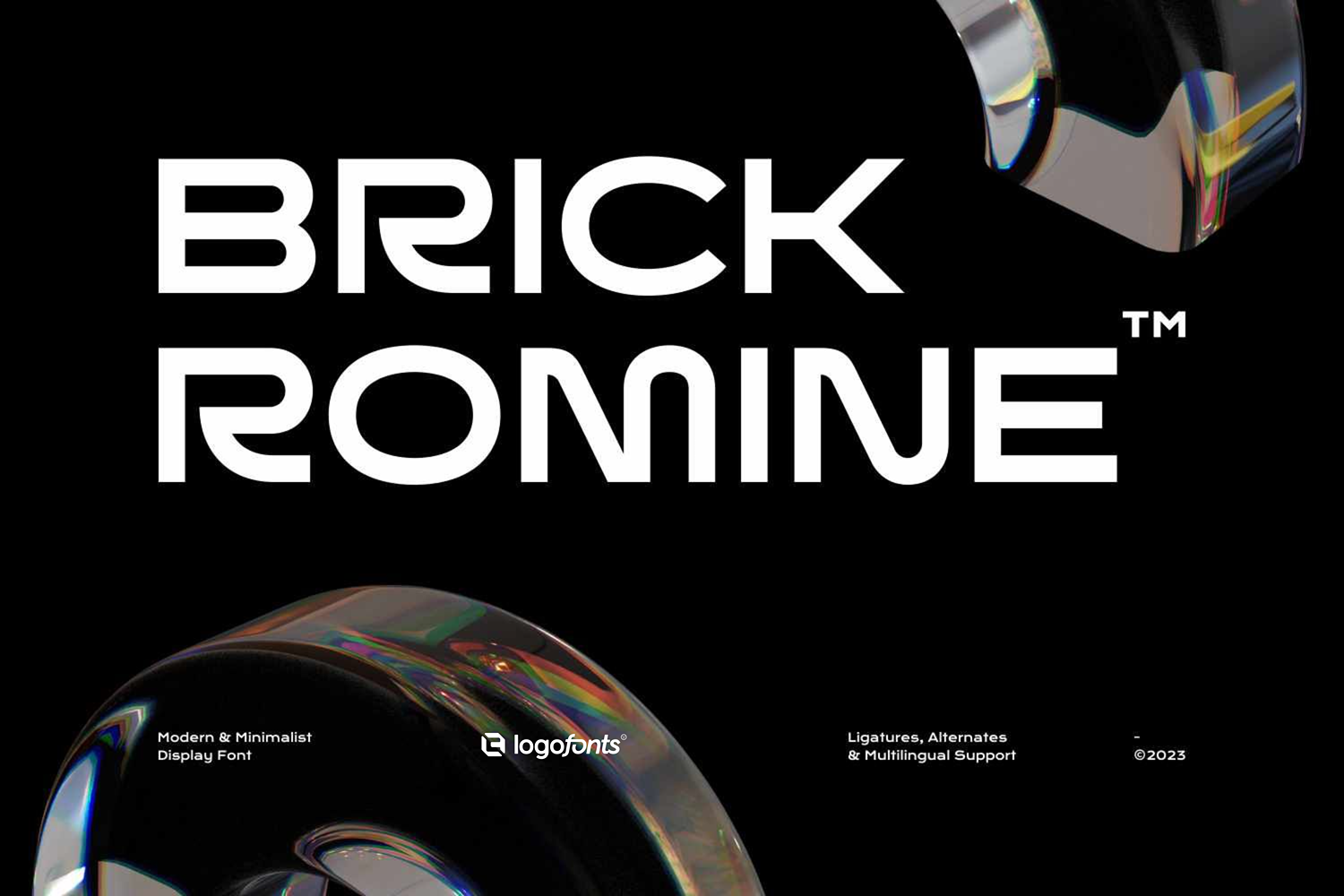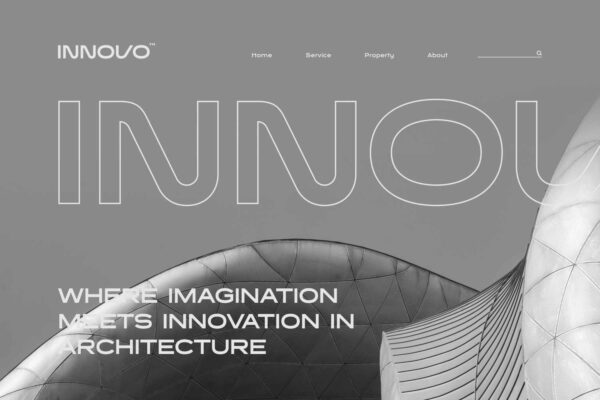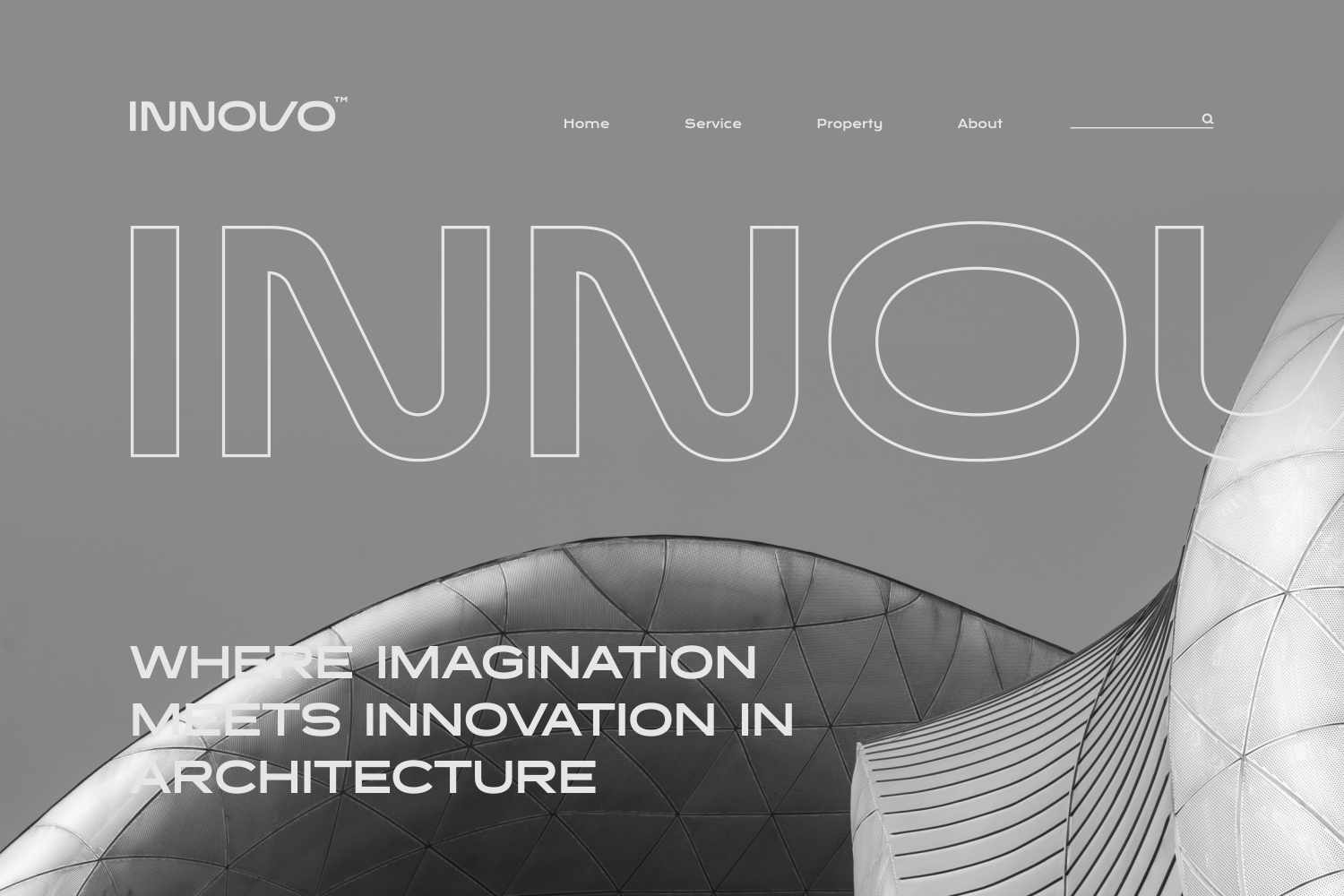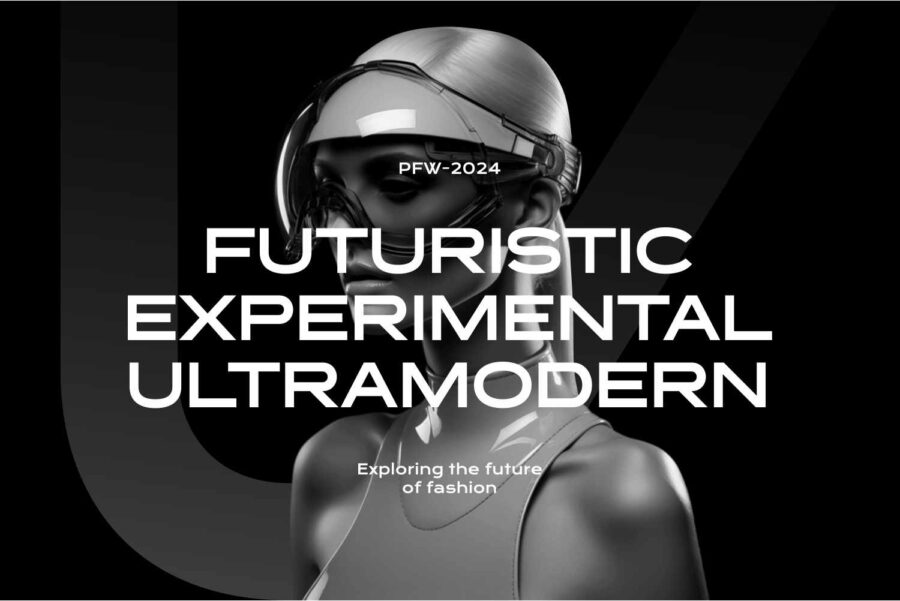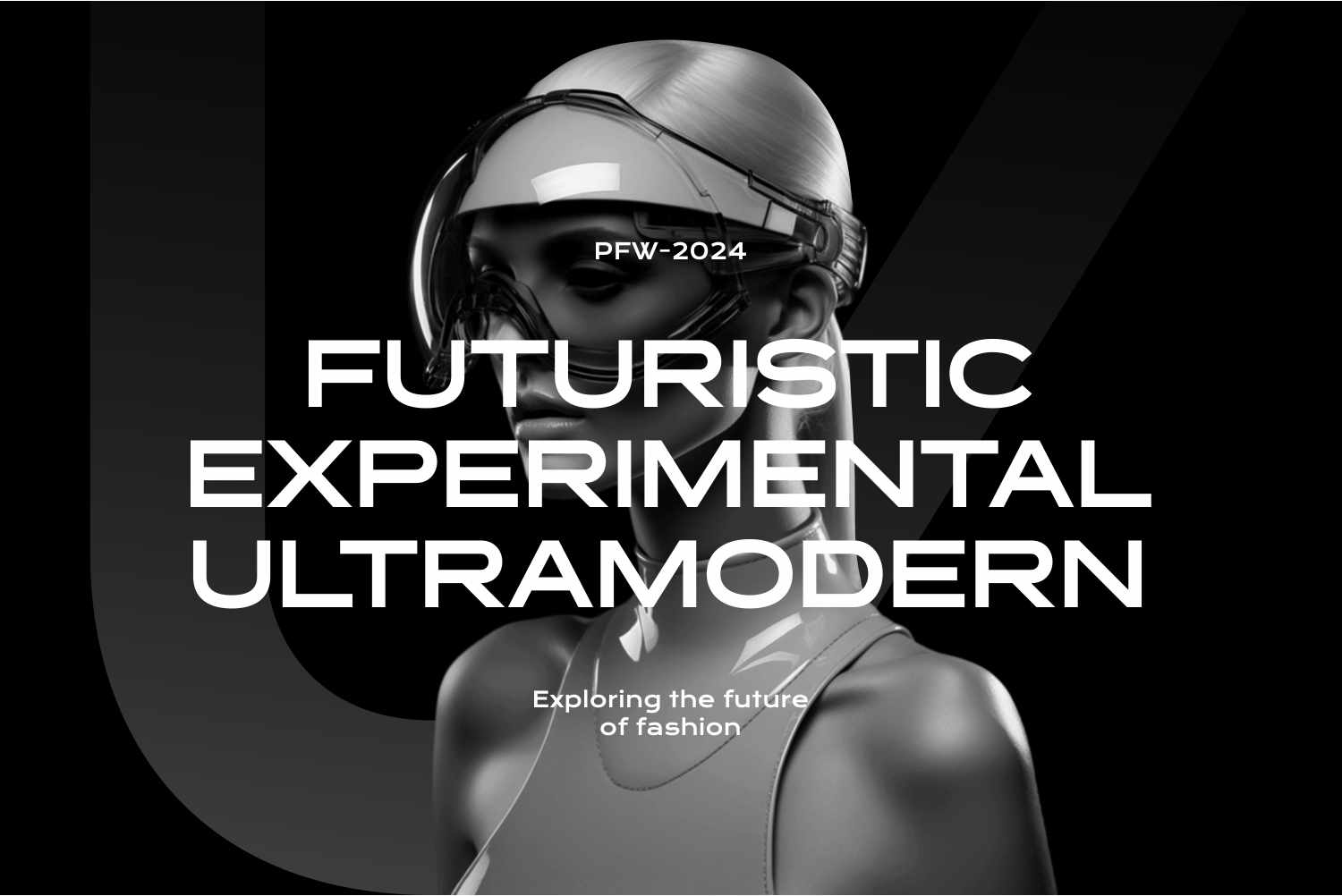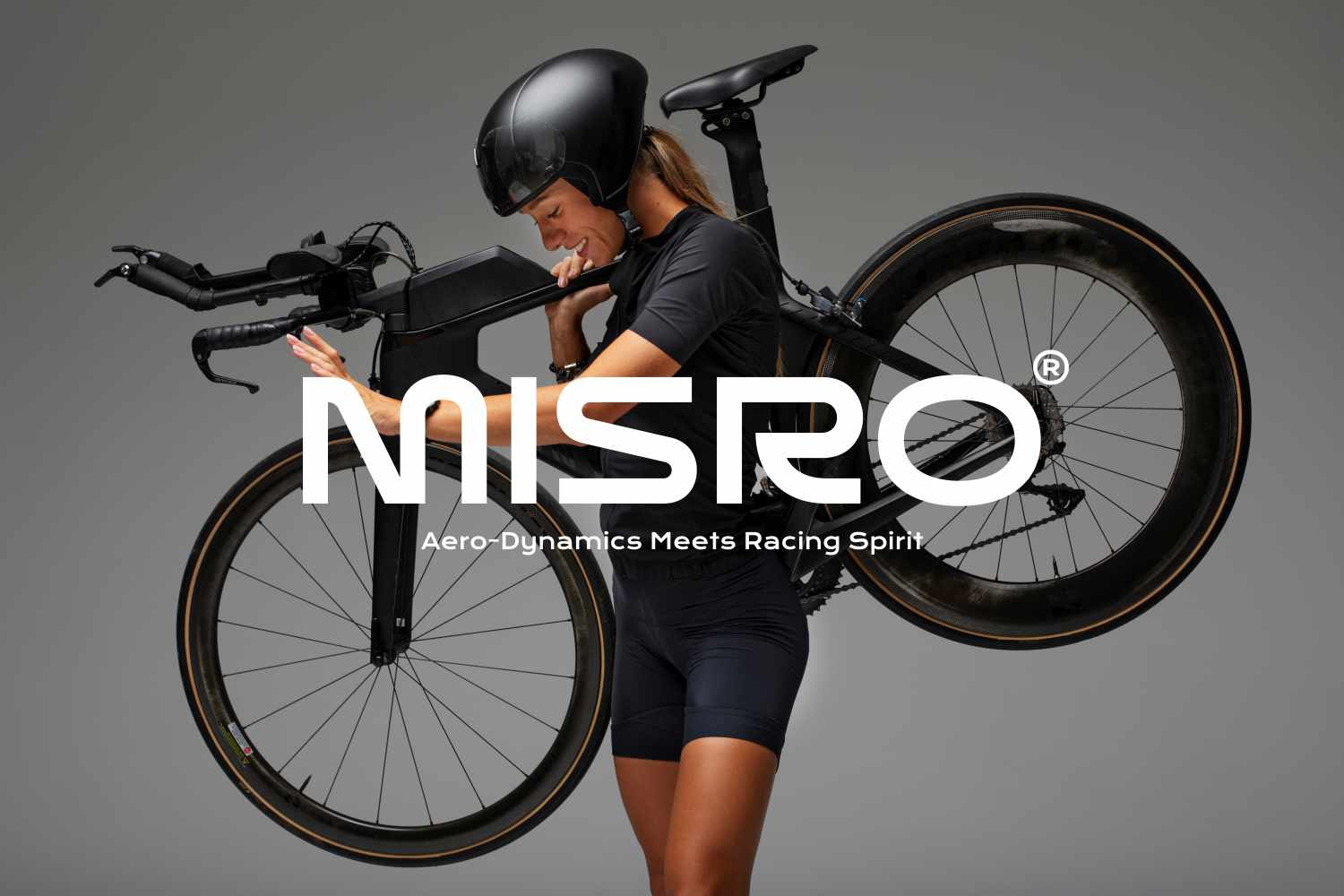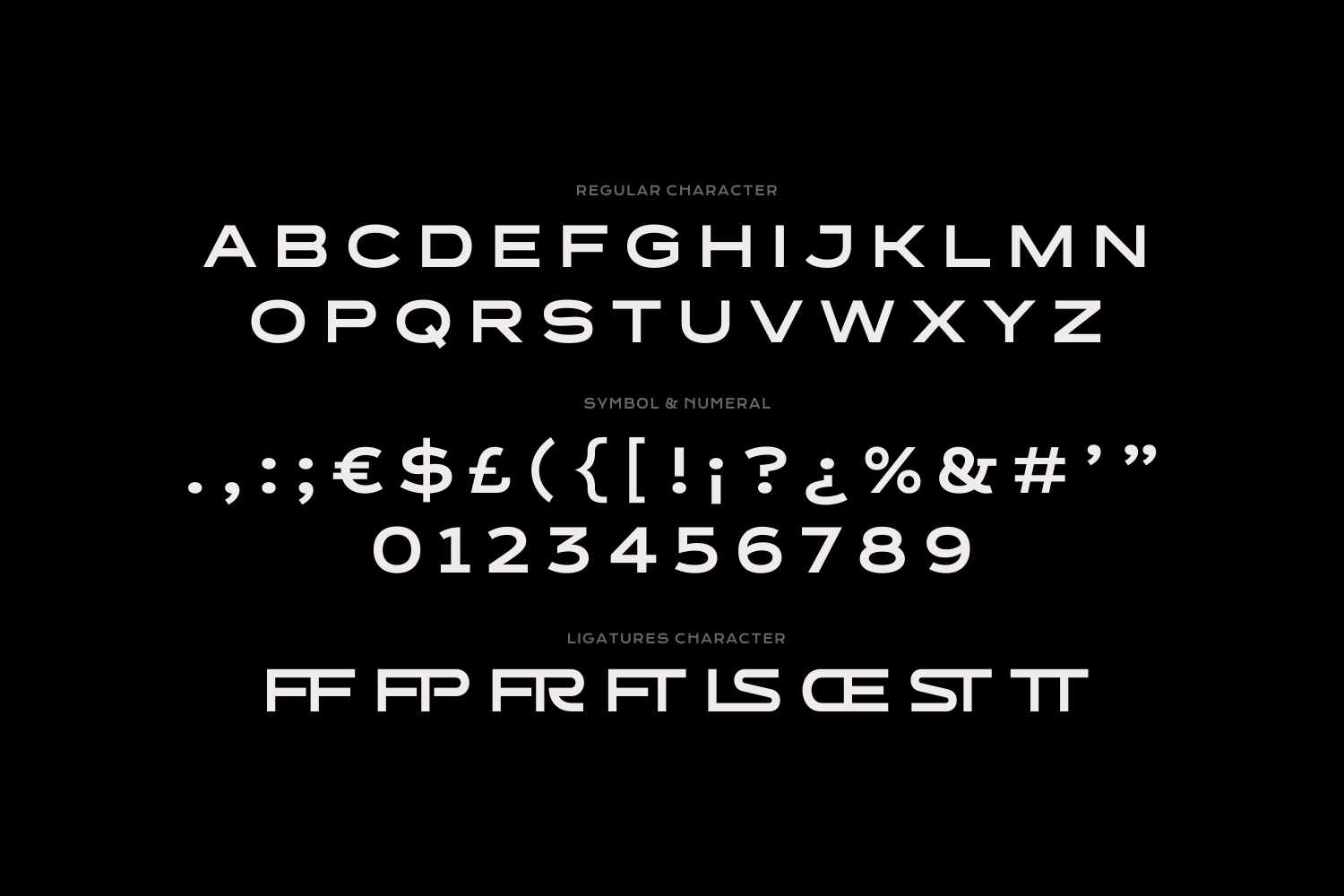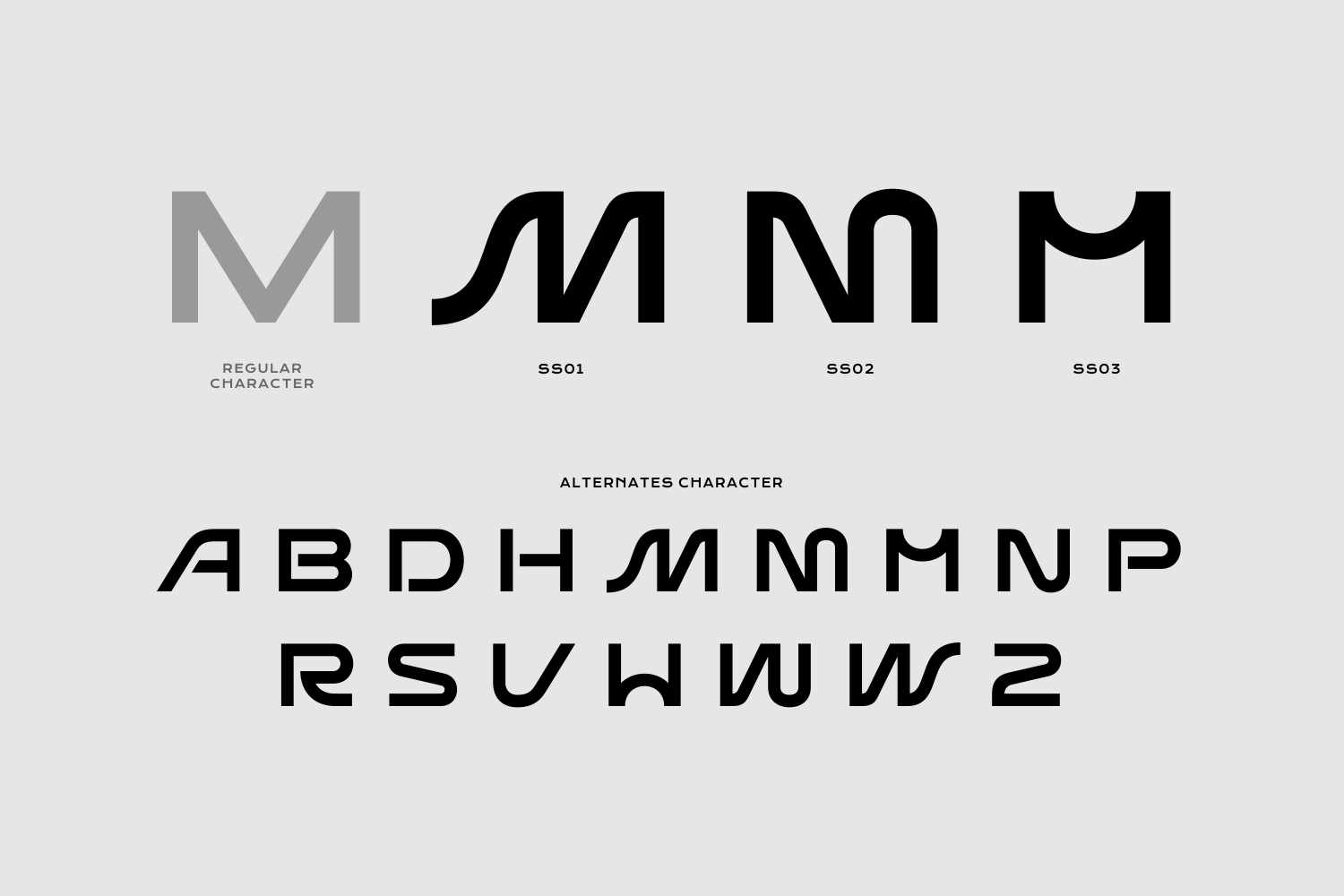
Brick Romine
Brick Romine is a modern and minimalist display font that combines clean lines with futuristic aesthetics. Designed for high-impact visuals, its sharp edges and unconventional alternates bring a bold and experimental vibe to your branding, poster designs, and digital interfaces. The unique alternates and ligatures offer a playful yet precise typographic voice perfect for forward-thinking projects.
With its dynamic style set, Brick Romine offers a wide range of creative possibilities—whether you’re designing for fashion, architecture, or tech. Its versatility lies in its ability to shift between structured elegance and expressive boldness, supported by multilingual characters and refined letterforms. Ideal for modern brands, websites, or editorial work that craves distinctive visual identity.